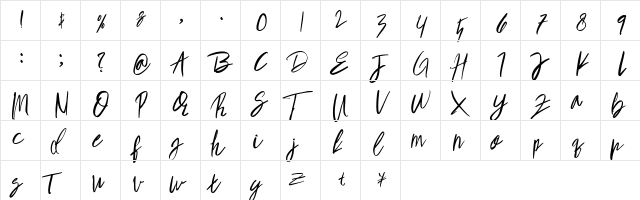
TabithaSmest Regular
| Foundry | mightype |
| Designer | munawir |
Design Context for TabithaSmest Typeface
TabithaSmest is a composed and adaptable typeface that performs quietly and consistently across a wide range of design contexts.